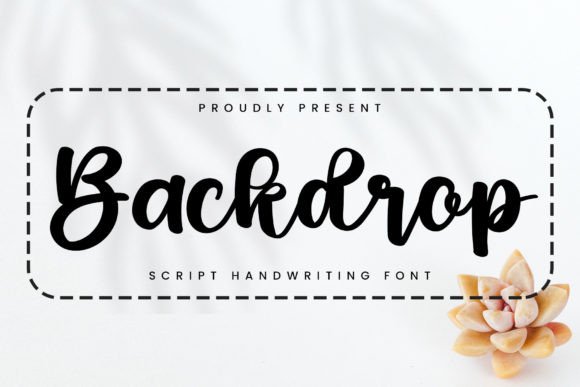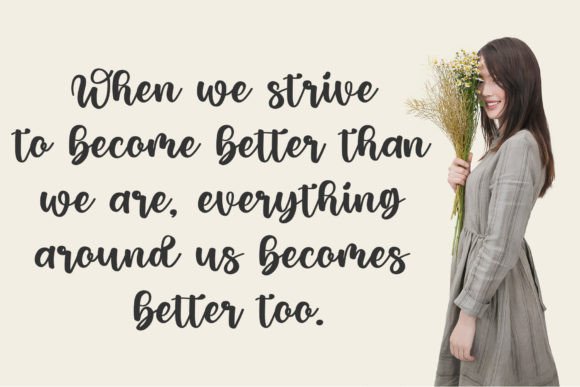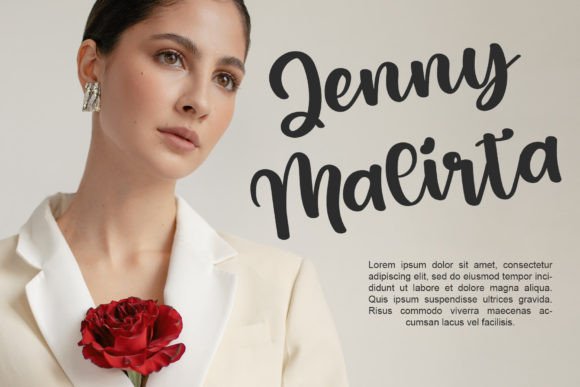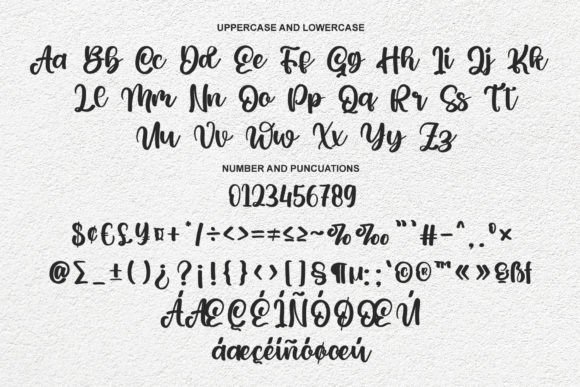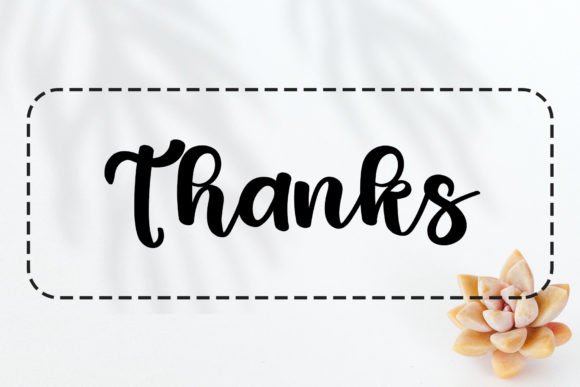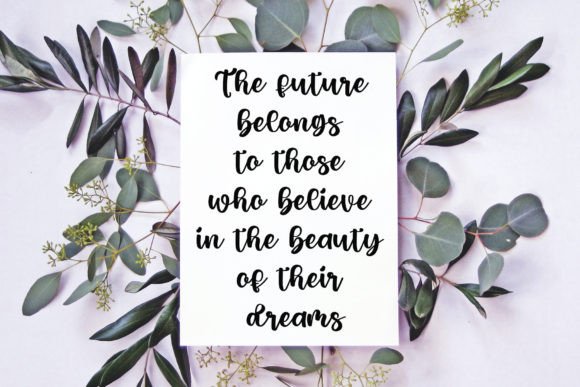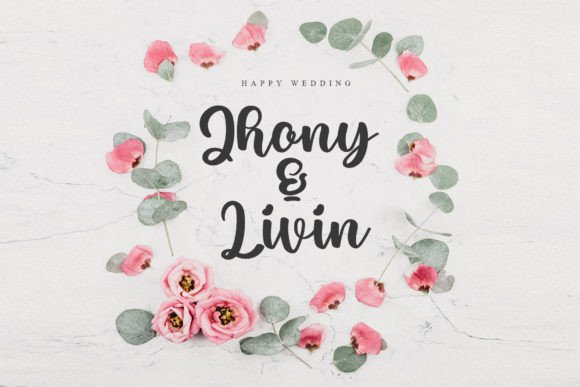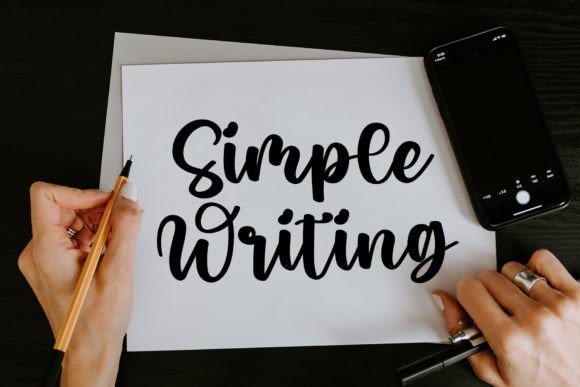
Backdrop Font
About Backdrop Font
“Backdrop” is a bold and expressive script font designed with thick and solid lines that prioritize readability while maintaining a balanced and pleasing visual appeal. This font strikes a harmonious fusion between playfulness and professionalism, making it a versatile choice suitable for a wide variety of design projects.
The appeal of “Backdrop” lies in its ability to deliver a sense of boldness and clarity while retaining an element of visual interest. The script style creates an engaging and legible aesthetic that can enhance different design elements, making it suitable for numerous creative endeavors.
One of the standout features of “Backdrop” is its versatility. It can seamlessly adapt to various design themes and styles, making it a valuable asset for your creative projects. Whether you’re working on playful and lively designs or require a font with a touch of professionalism, “Backdrop” is a font that can meet your needs.
When you incorporate “Backdrop” into your projects, you can expect your creations to exude a sense of confidence and visual impact. This font has the power to make your designs stand out and convey a strong message to your audience.
In summary, “Backdrop” is more than just a font; it’s a design asset that can enhance your creative projects with its bold and expressive script style. Its versatility and balance between playfulness and professionalism make it a valuable addition to your design toolkit. You can confidently use “Backdrop” to elevate any project, as it has the potential to bring a sense of boldness and clarity to your designs!